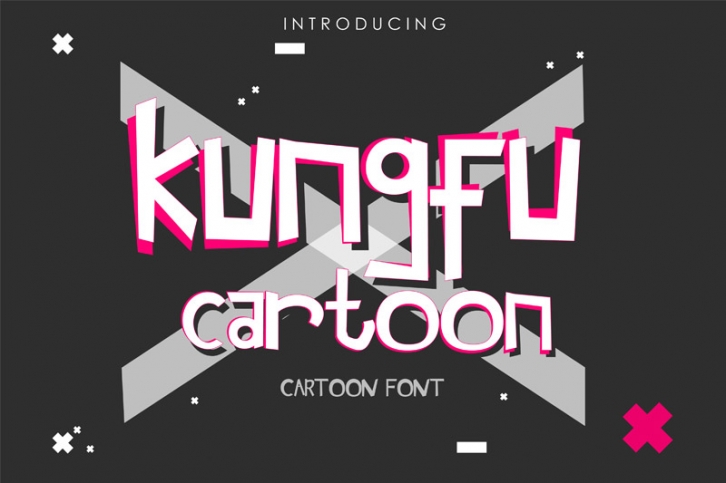
Kungfu cartoon is a great font that was designed by Akhbar Design. Imagine the amount of combinations you can create using this font! The archive is 16.48 MB and it was released on January 10, 2020. Kungfu cartoon looks beautiful on wedding invitations, greeting cards, logos, posters, labels, t-shirt designs, logos, business cards and is perfect for use in ink or watercolor works, fashion, magazines, packaging and food menus, children's books and more!